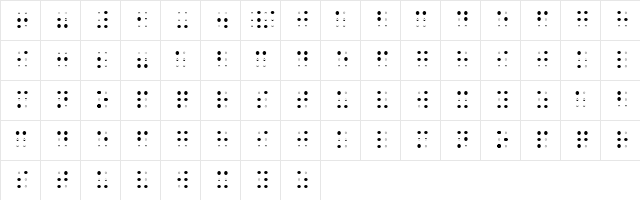
Sheets Braille Light Regular
Foundry: Doug Sheets
Designer: Doug Sheets
Design Context for Sheets Braille Light
Sheets Braille Light is a composed and adaptable typeface that performs quietly and consistently across a wide range of design contexts. Its slender proportions lend an understated elegance to any composition.